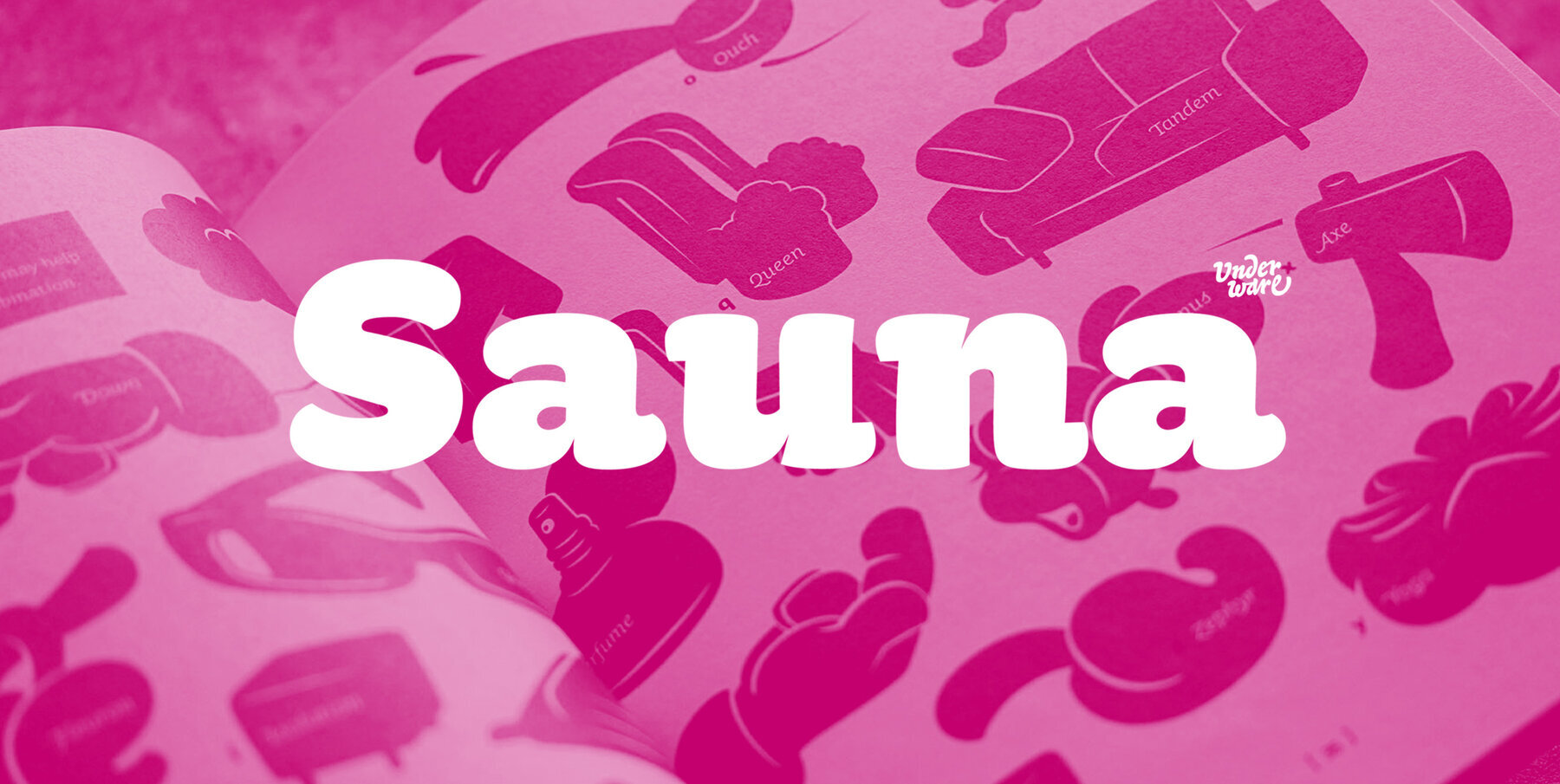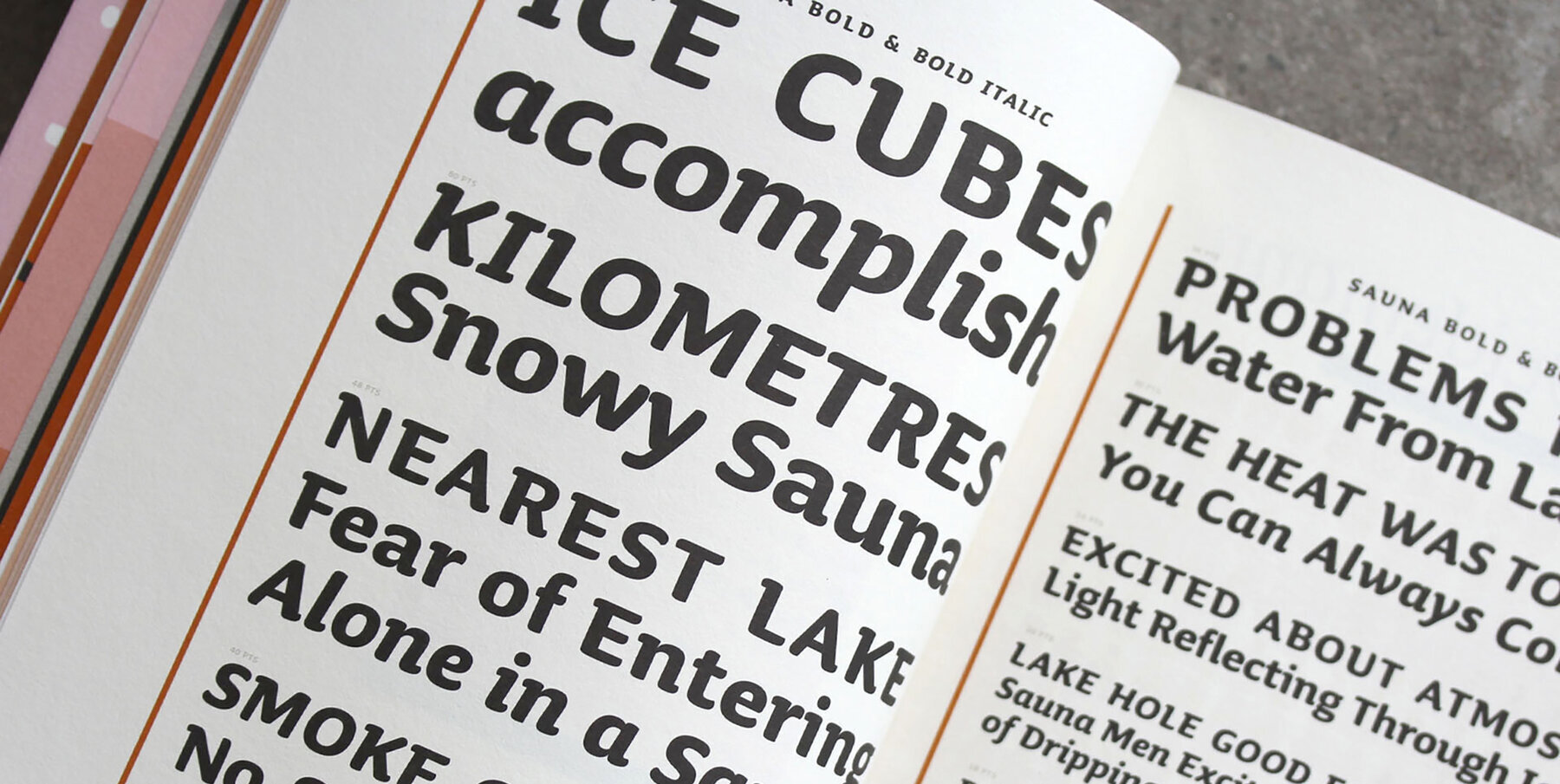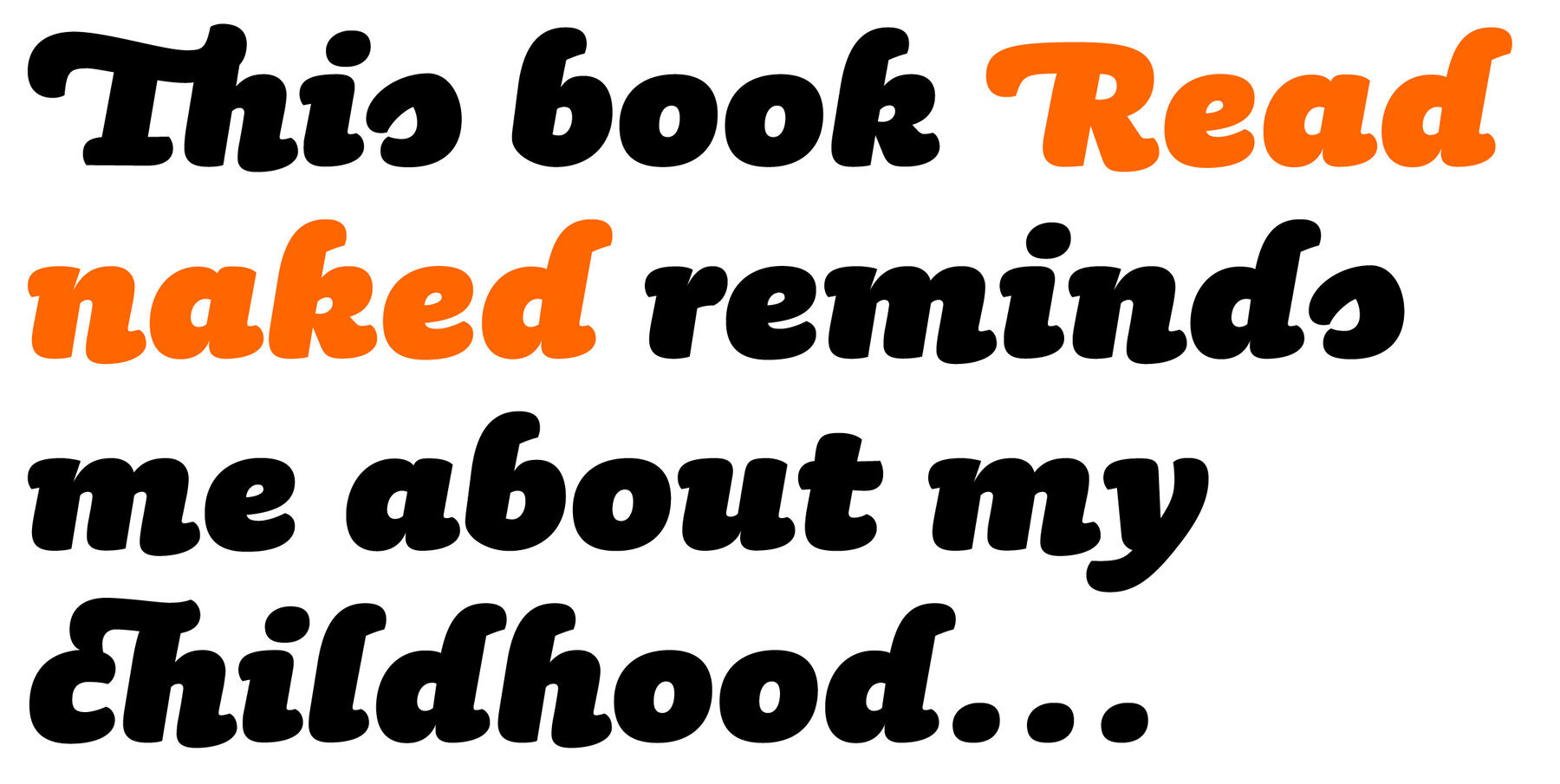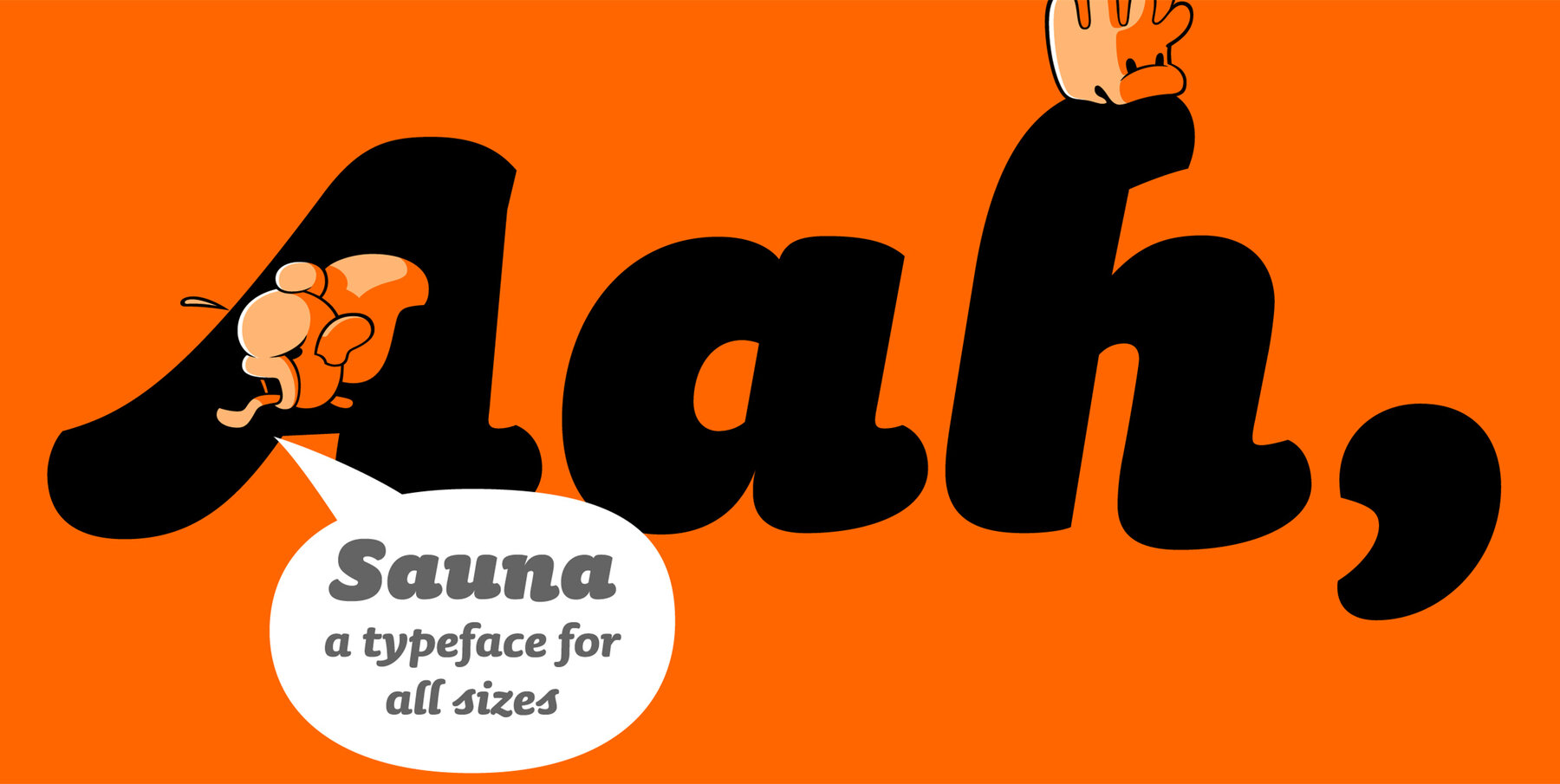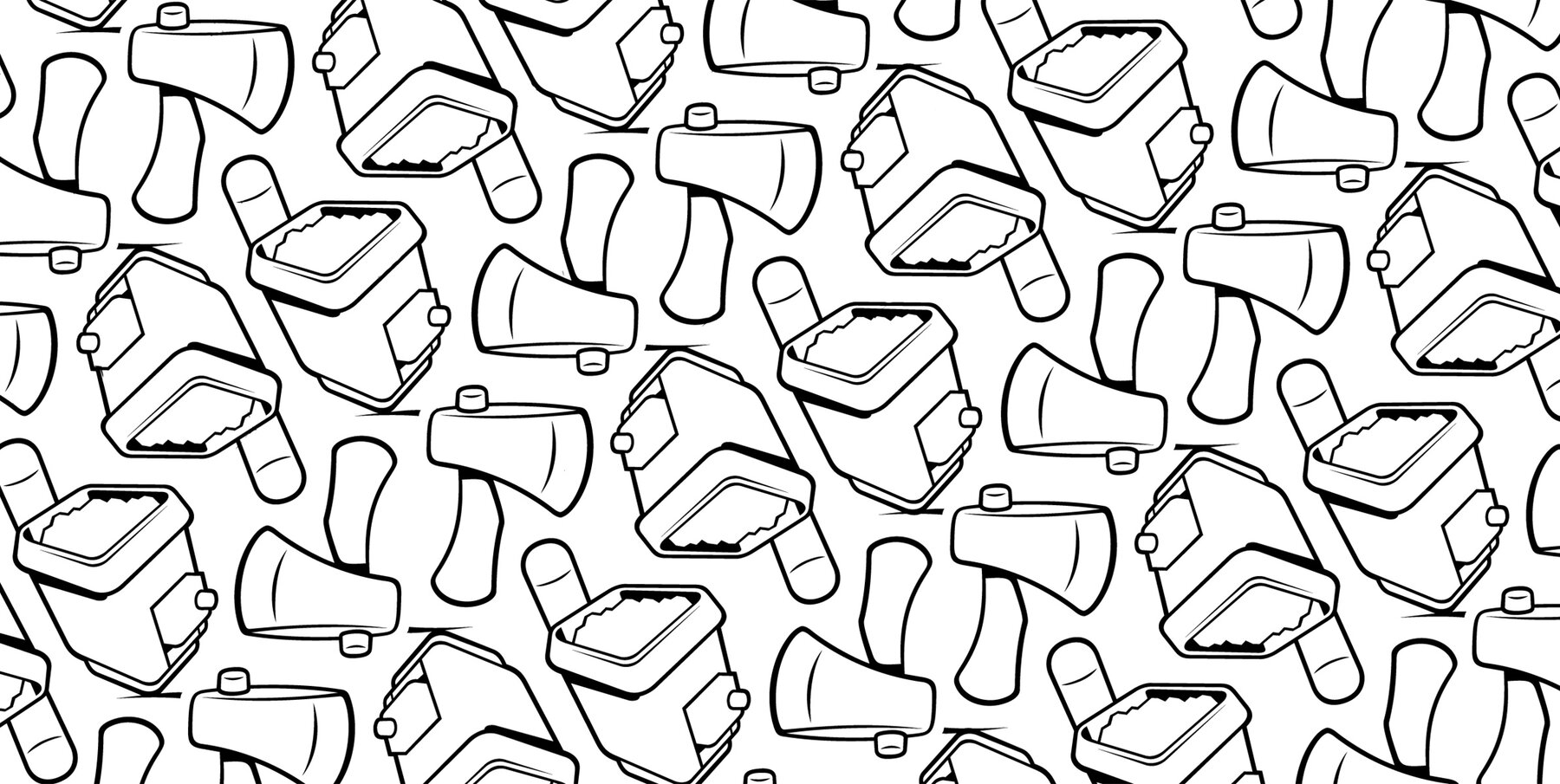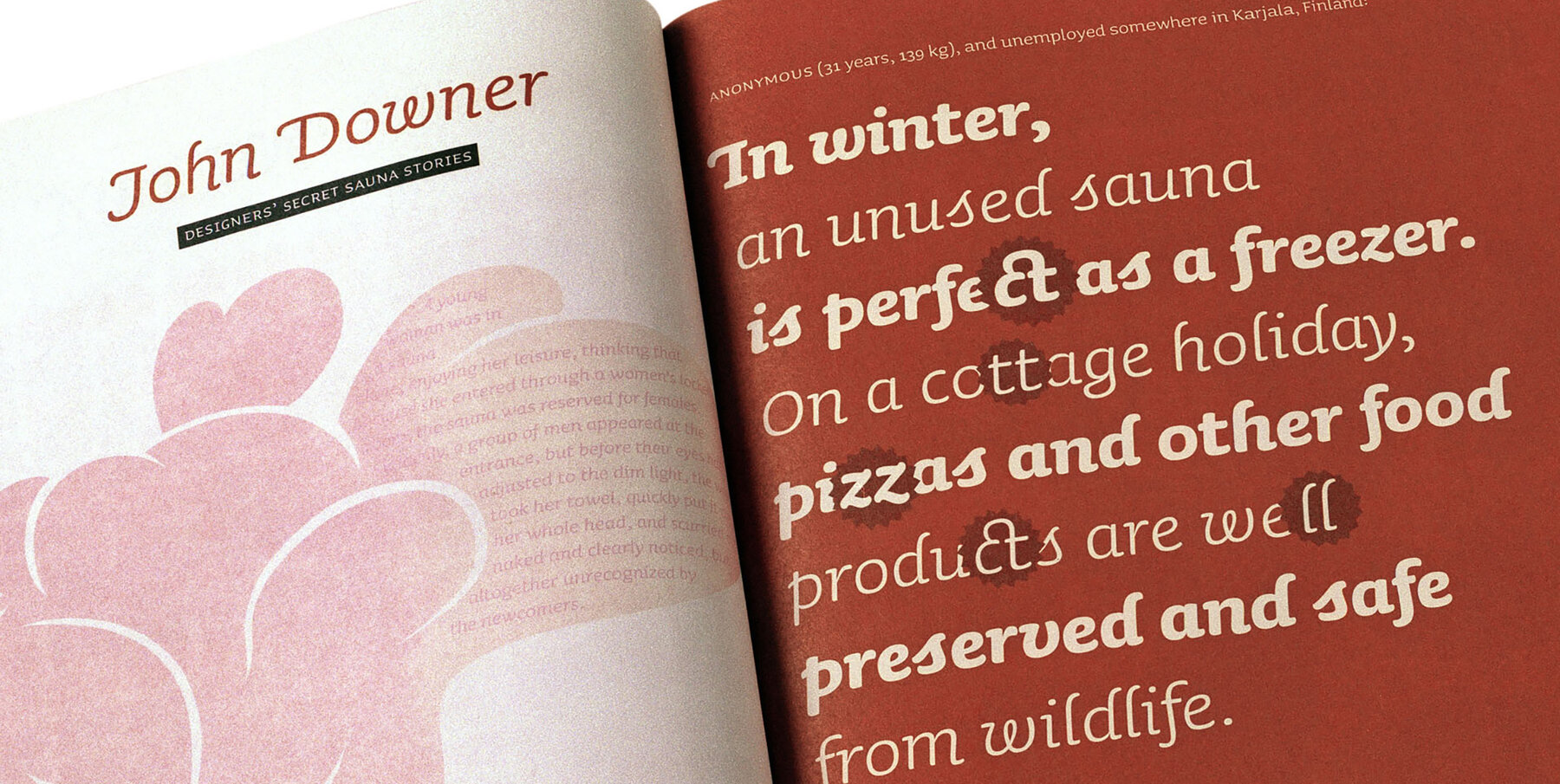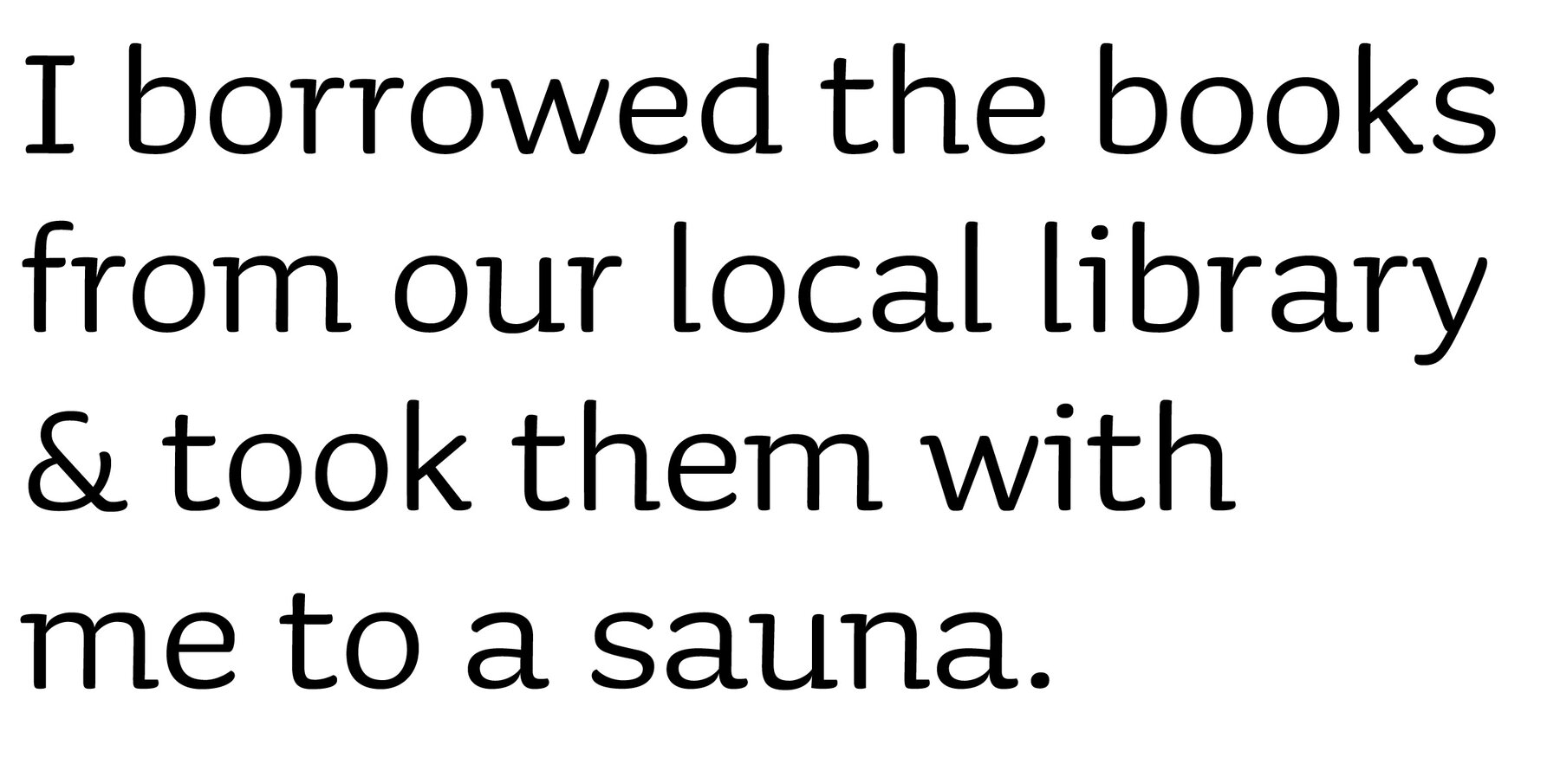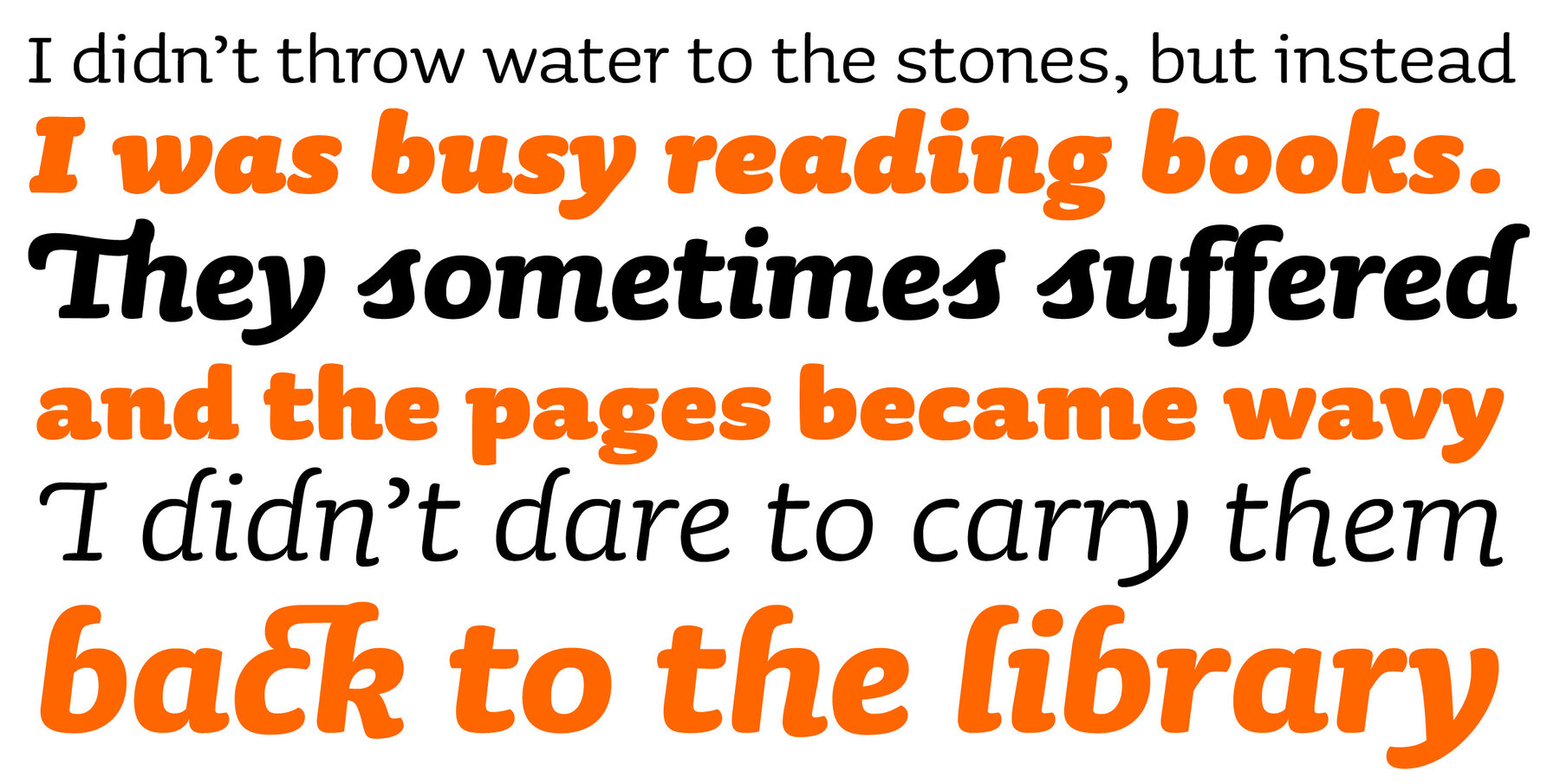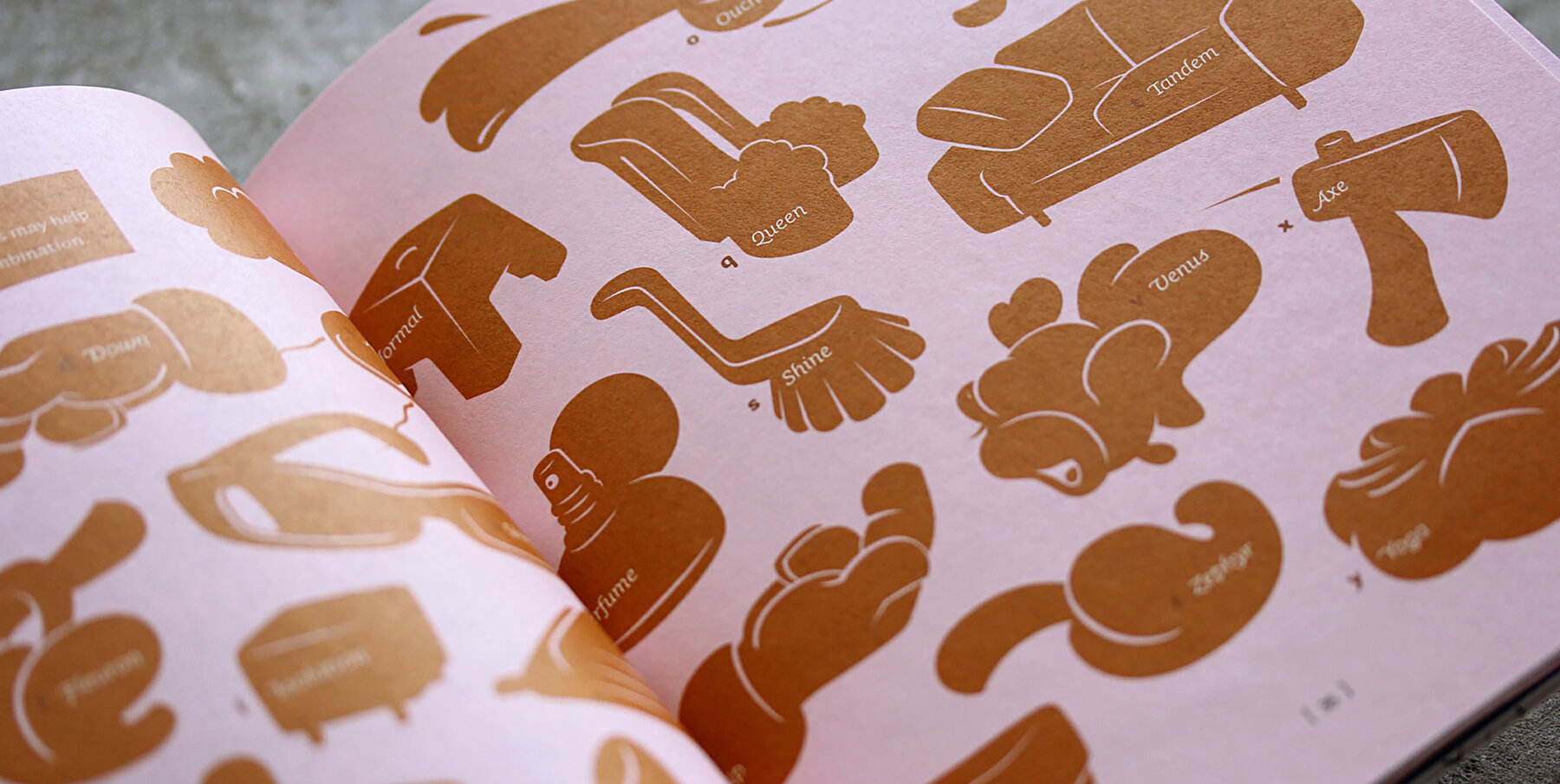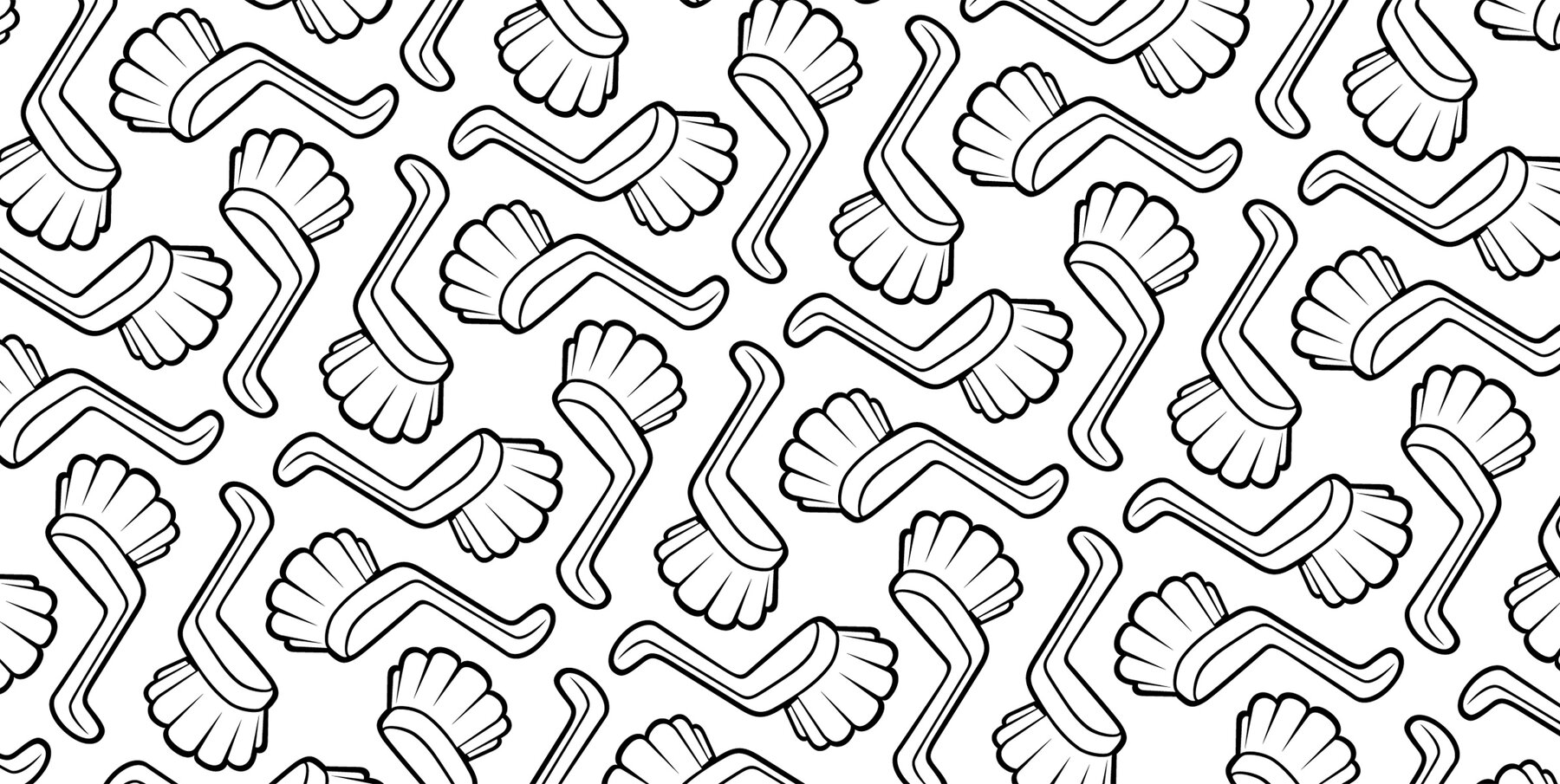
Sauna Pro Font
This sauna is as hot as you make it! Sauna Pro family comes for all sizes and ages, containing Regular, Bold and Black weights. Regular and Bold can be used together in various sizes in texts and headlines. Regular weight is supported with Small caps. Three Black styles are individual and specially made for display use (from magazine headlines to billboards). For every weight there are two italics. Basic Italic is formal and stable, Italic Swash is happy and fancy. Dingbats give a little extra next to the typographics. Dingbat fonts include 26 illustrations which can be used as plain black and white illustrations, or as multi-coloured illustrations. This style palette offers a flexible range for a wide variety of text and display typography.
Sauna Pro has Underware’s world-dominating Latin Plus character set, supporting a total of 219 languages.